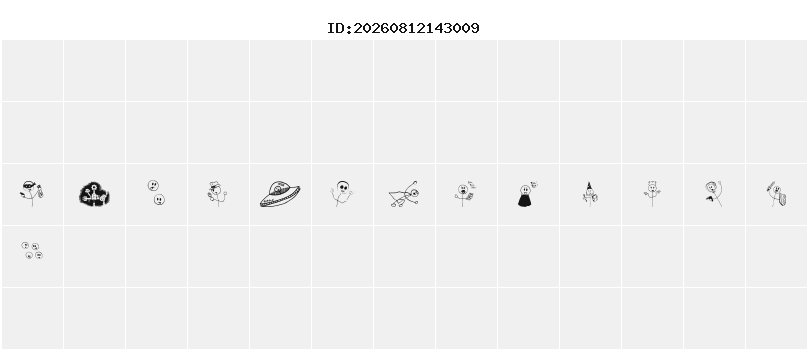
Risus LCB Dingbats Preview
• Font Name: Risus LCB Dingbats
• Full Font Name: Risus LCB Dingbats
• Character Count: 15
• Designer: S. John Ross
• Description: Dingbat font for use in Risus: The Anything RPG
About Risus LCB Dingbats.ttf